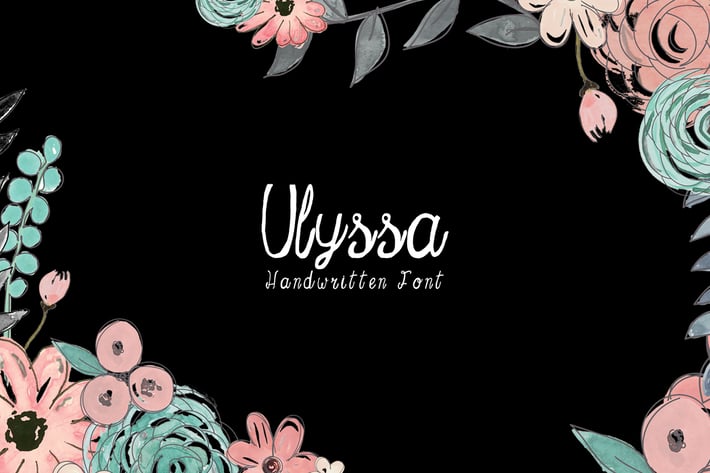
Ulyssa Handwritten Font
Ulyssa is a stylish contemporary handwritten font you've been looking for, Its unique flow and style makes it perfect to use for prints, logos, quotes, badges, labels, packaging design, blog, websites, designs, headlines, banners, posters, printings, T-shirts, magazines, promotional product, templates, etc.
Ulyssa Font Features:
- Uppercase Multilingual Letters
- Lowercase Multilingual Letters
- Non English Characters ( Latin Extended A )
- ABCDEFGHIJKLMNOPQRSTUVWXYZ
- abcdefghijklmnopqrstuvwxyz
- 0123456789
- ÀÁÂÃÄÅÈÉÊËÌÍÎÏÑÒÓÔÕÖÙÚÛ
- Üßàáâãäåèéêëìíîïñòóôõöùúûü